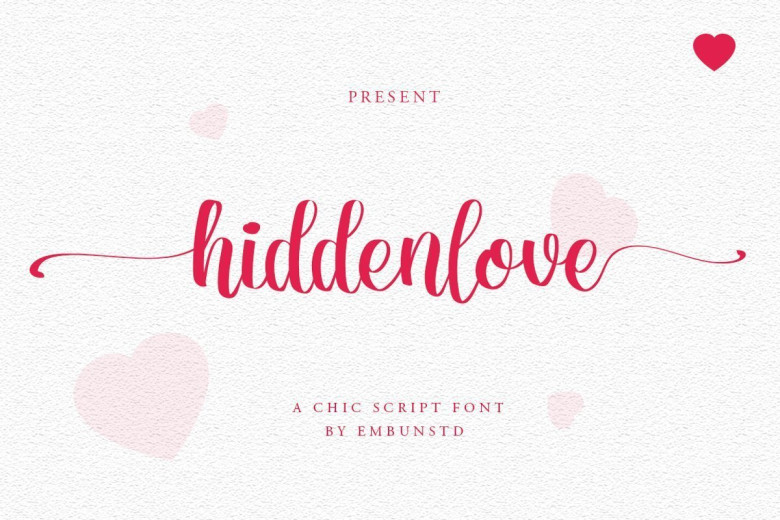
Hiddenlove Calligraphy Script Font
Hiddenlove Font is a beautiful modern calligraphy wedding typeface. This font is feminime, elegant, messy and modern. Hiddenlove perfect for wedding event, anniversary, birthday,greeting cards, logotype, branding, wedding invite and card, elegant logo, poster, packaging, stationery, website, and any other projects requiring a handwritten and luxurious touch.